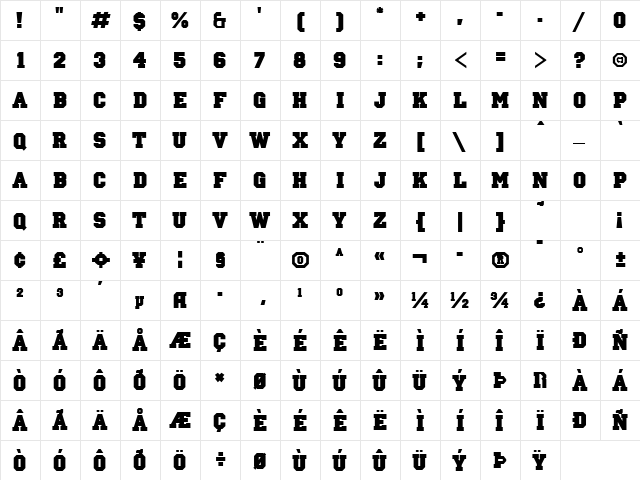
Ivy League Solid Regular
Design Context for Ivy League Solid Typeface
Ivy League Solid offers clean, dependable letterforms without strong stylistic allegiance, making it a practical choice for designers who need flexibility.
Pro Tip: Use Ivy League Solid in both headline and body roles to test its range before committing to a single application.